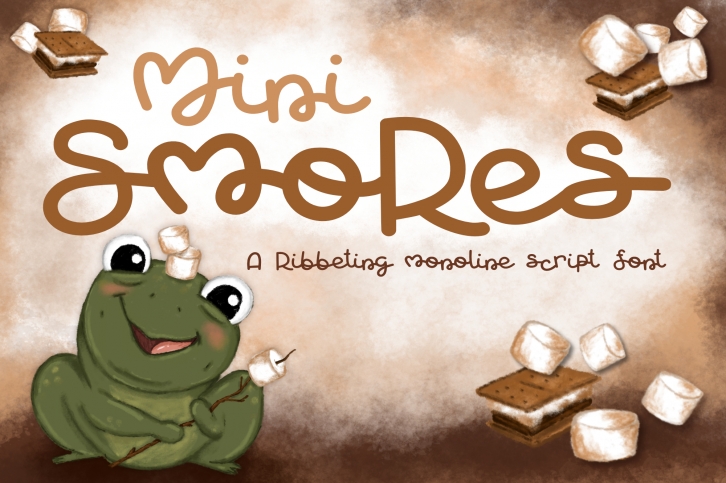
Mini Smores | A ribbeting monoline script font Download
Mini Smores is a gorgeous font that was realeased on February 19, 2019. The font can be used in many style contexts and design environments. Perfect for invitations, magazines, websites, logos, and more! It was designed by CuddleBunnieStudio and the file size is 15.54 MB. Thanks for checking out this font!